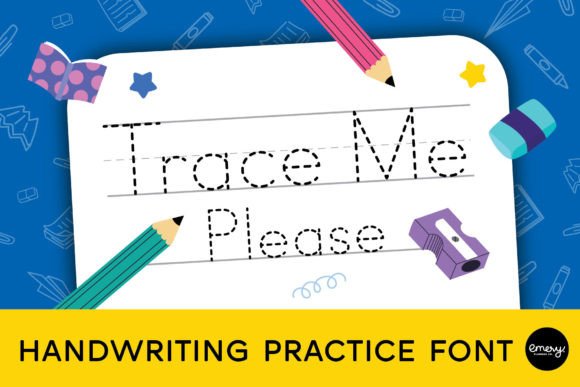
Introducing Trace Me Please Font, the ultimate decorative font designed by Emery Planner Co. If you're looking for a font that not only adds a touch of creativity to your projects but also aids in letter formation and writing practice, then look no further!
This captivating font is specifically tailored for children, making it perfect for educational purposes. Let your little ones embark on a journey of learning and discovery as they master the art of proper letter formation. With Trace Me Please Font, you can bring a whole new level of excitement to their writing practice sessions.
But that's not all – this font allows you to unleash your creativity and create personalized worksheets and educational resources. From tracing letters to crafting engaging exercises, the possibilities are endless. You can effortlessly design captivating materials that will capture the attention of young learners and make the learning process enjoyable.
Trace Me Please Font is more than just a decorative font; it's a valuable tool for educators, parents, and anyone passionate about helping children develop essential writing skills. With its eye-catching design and attention to detail, this font will elevate the quality of your educational resources and make them truly stand out.
Imagine the joy on children's faces as they engage with beautifully crafted worksheets, all thanks to the magic of Trace Me Please Font. Watch as their confidence soars and their handwriting transforms into a work of art. This font is a game-changer, bringing a new level of excitement and creativity to the world of educational materials.